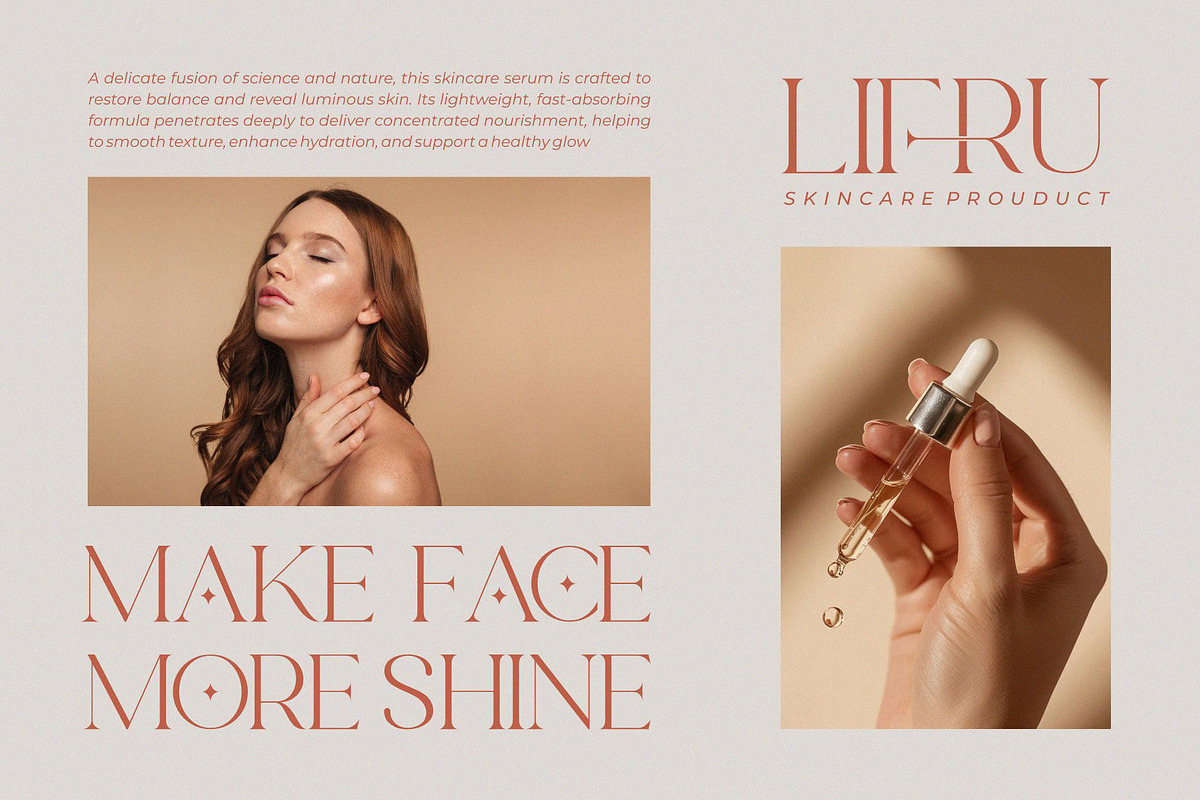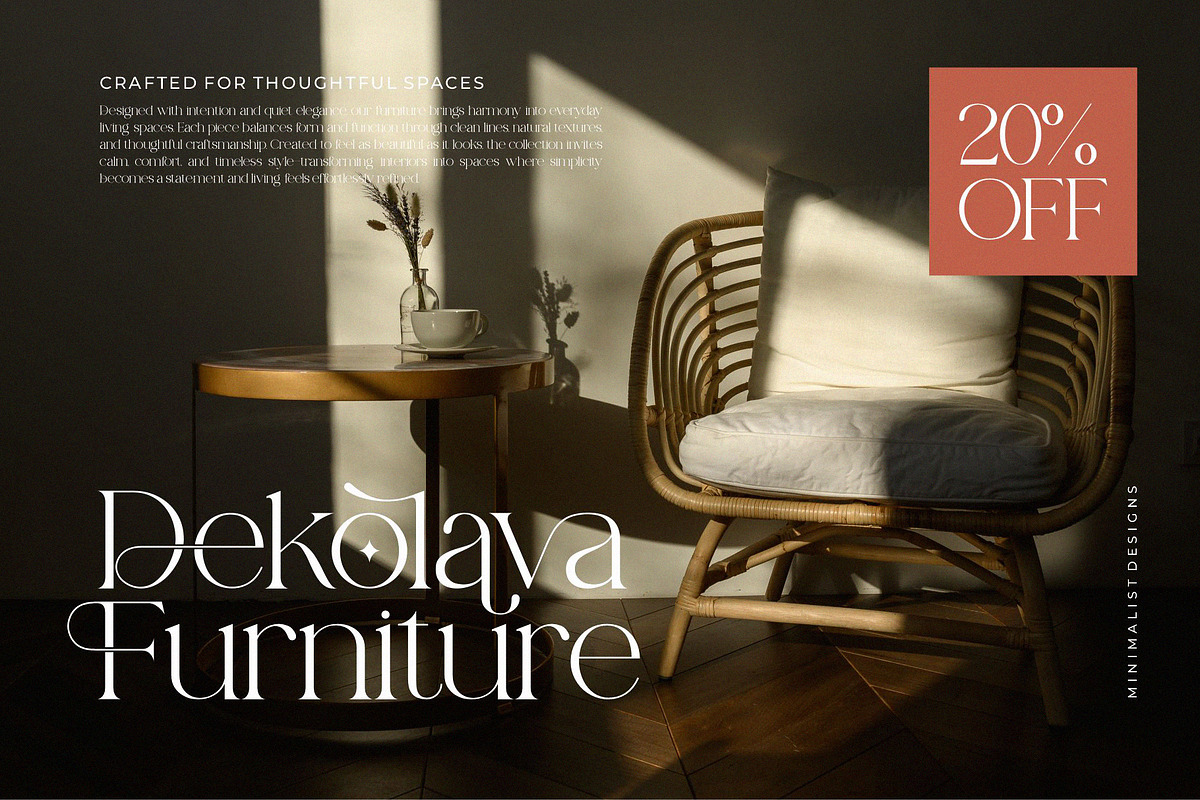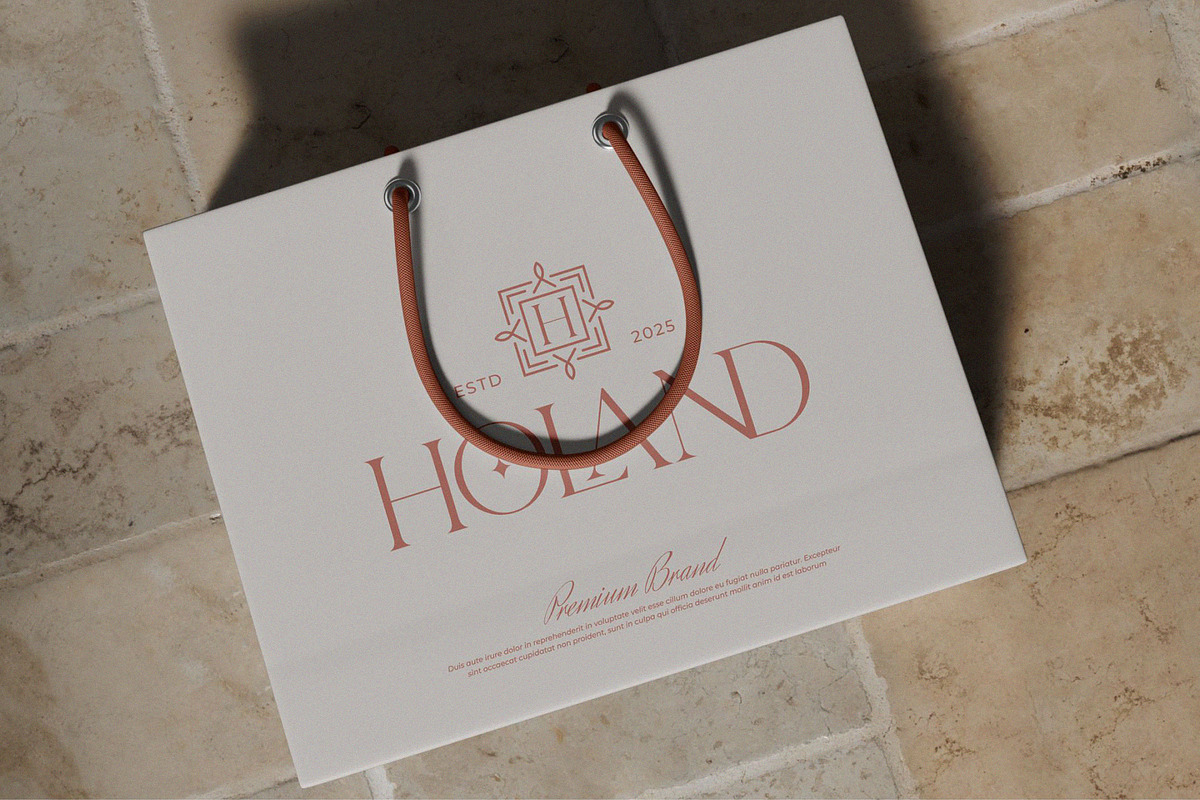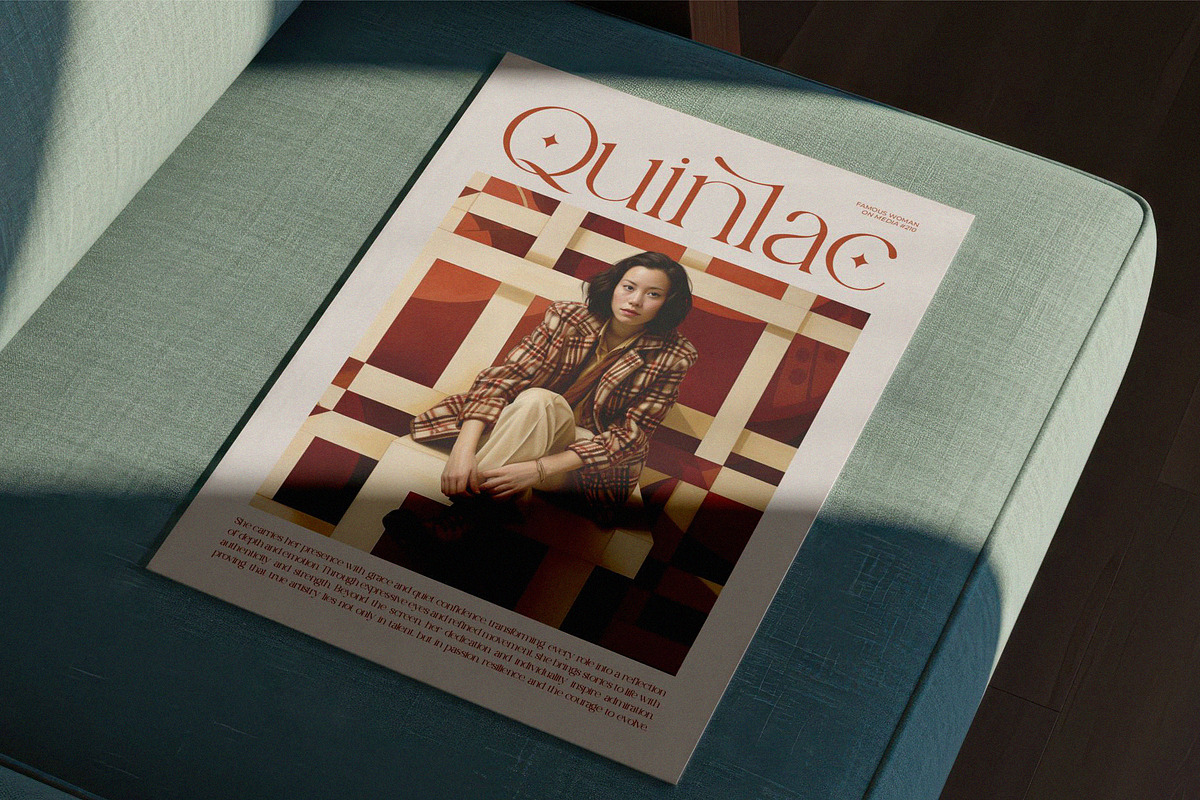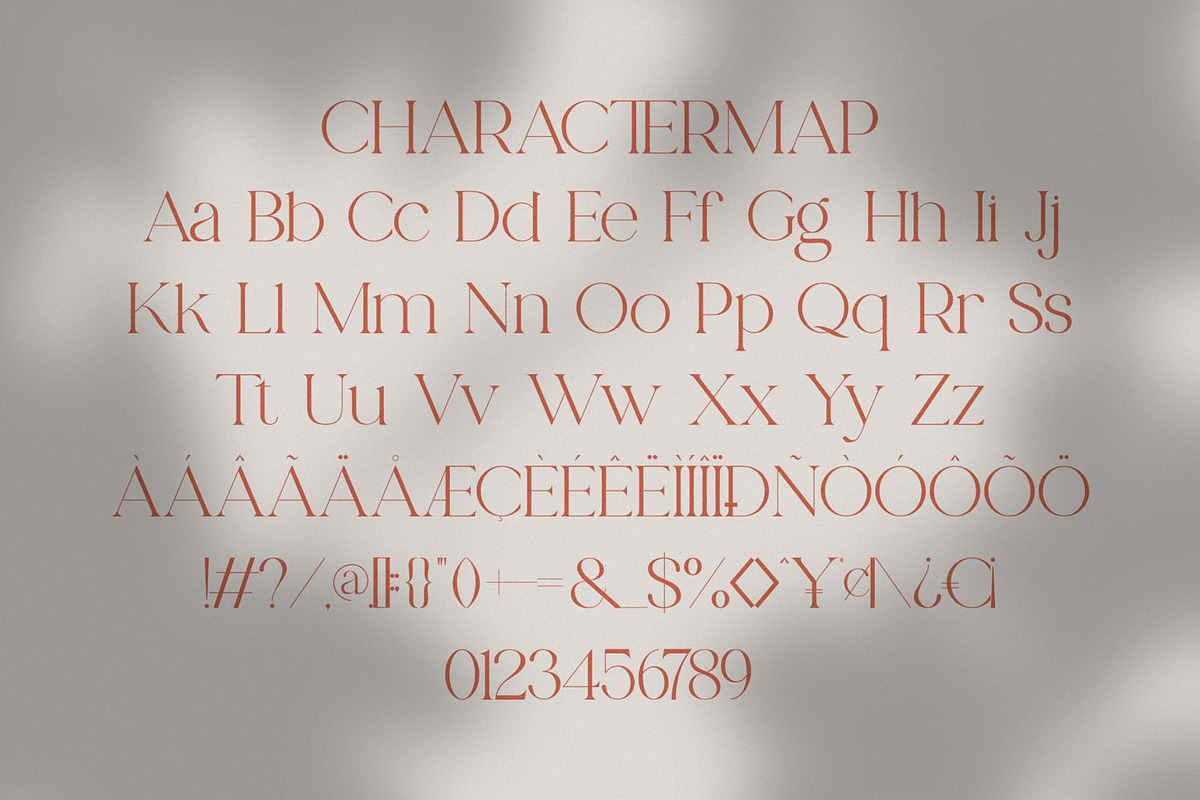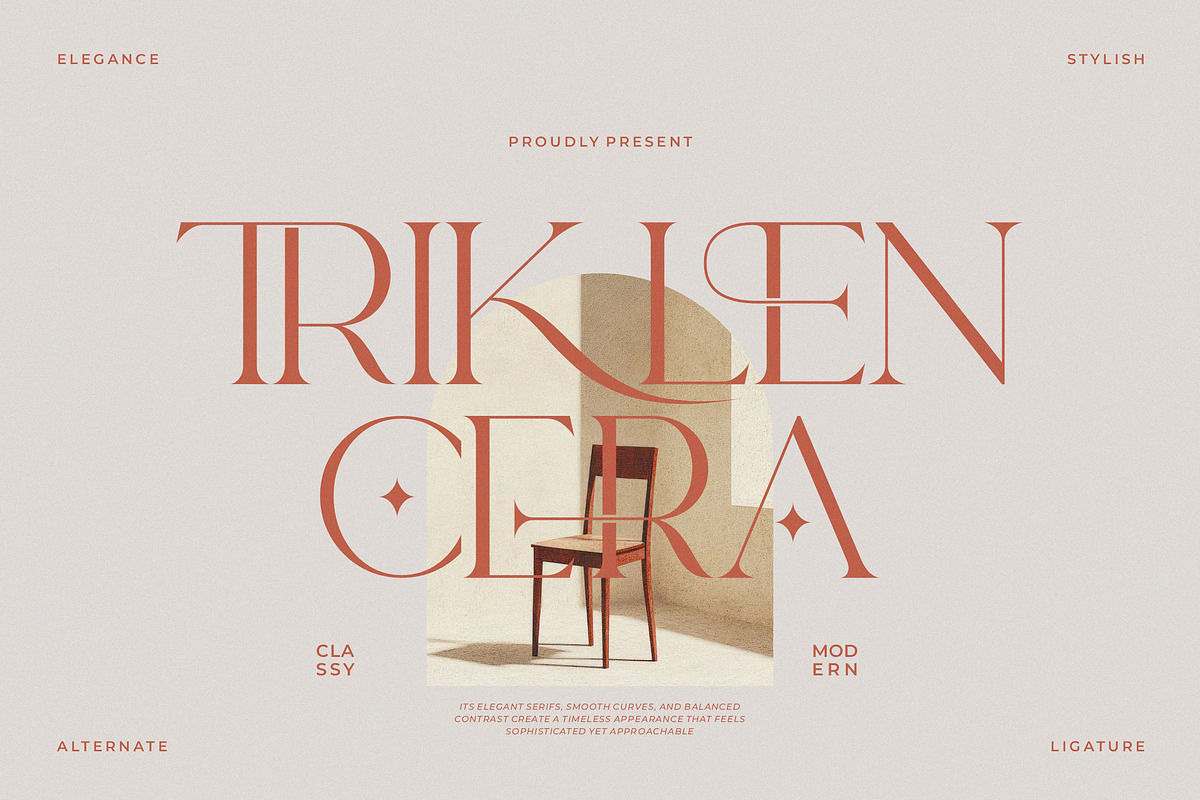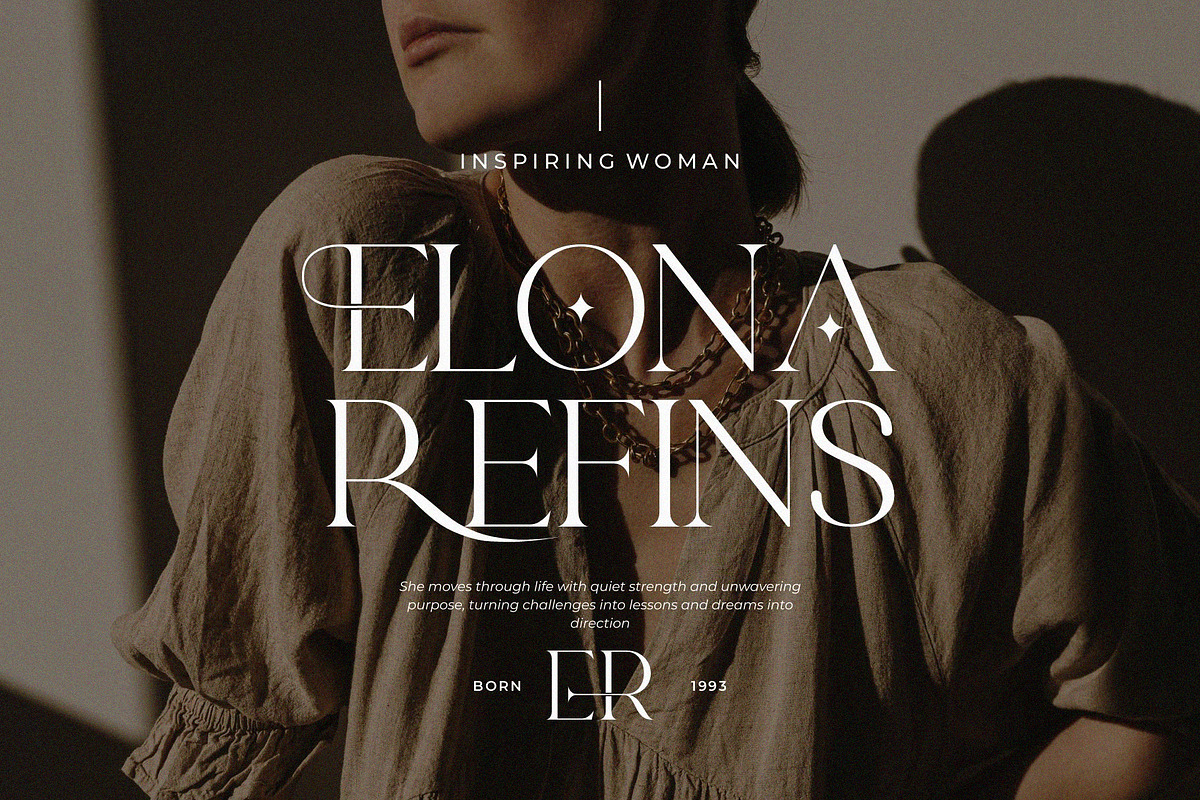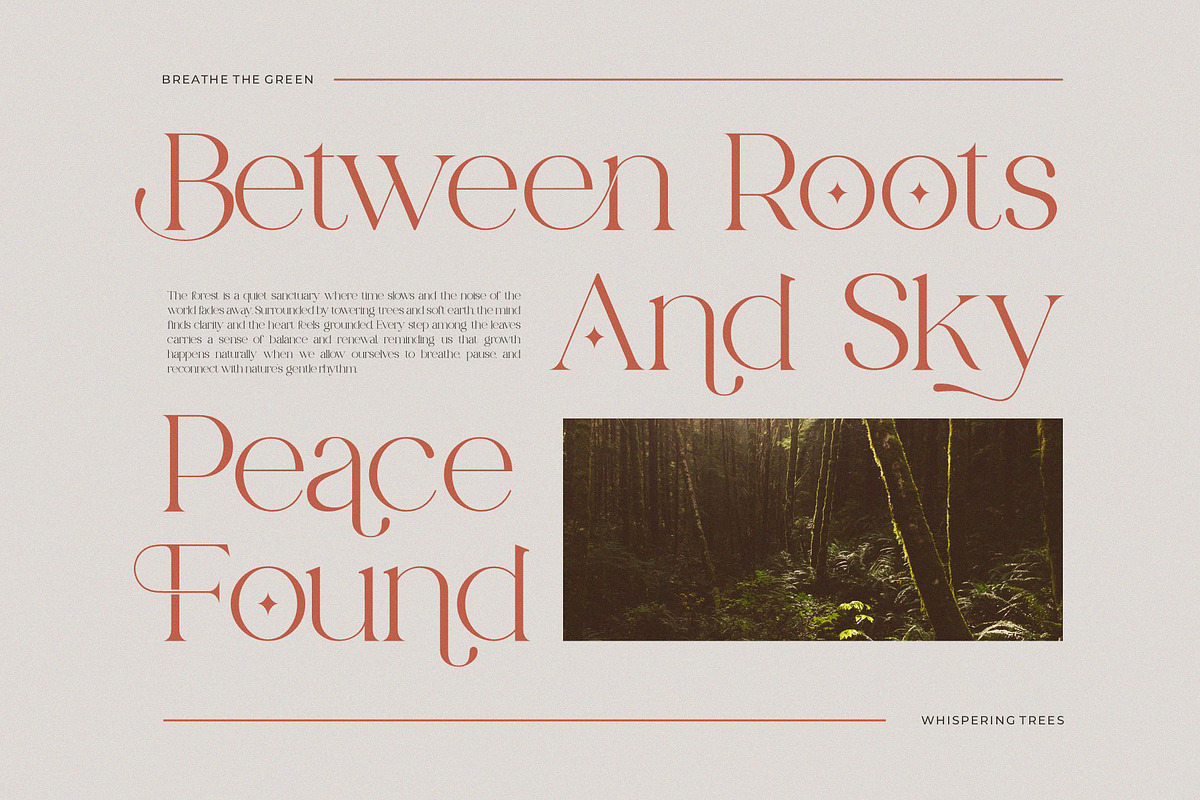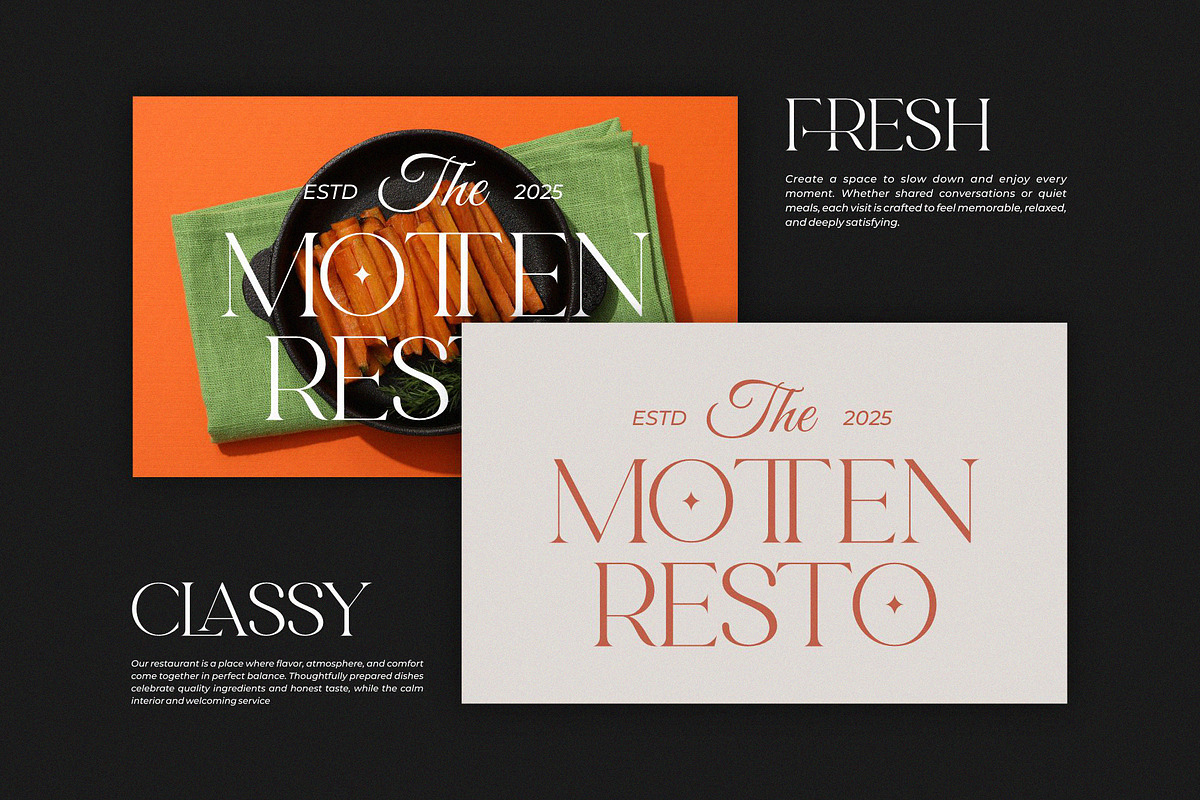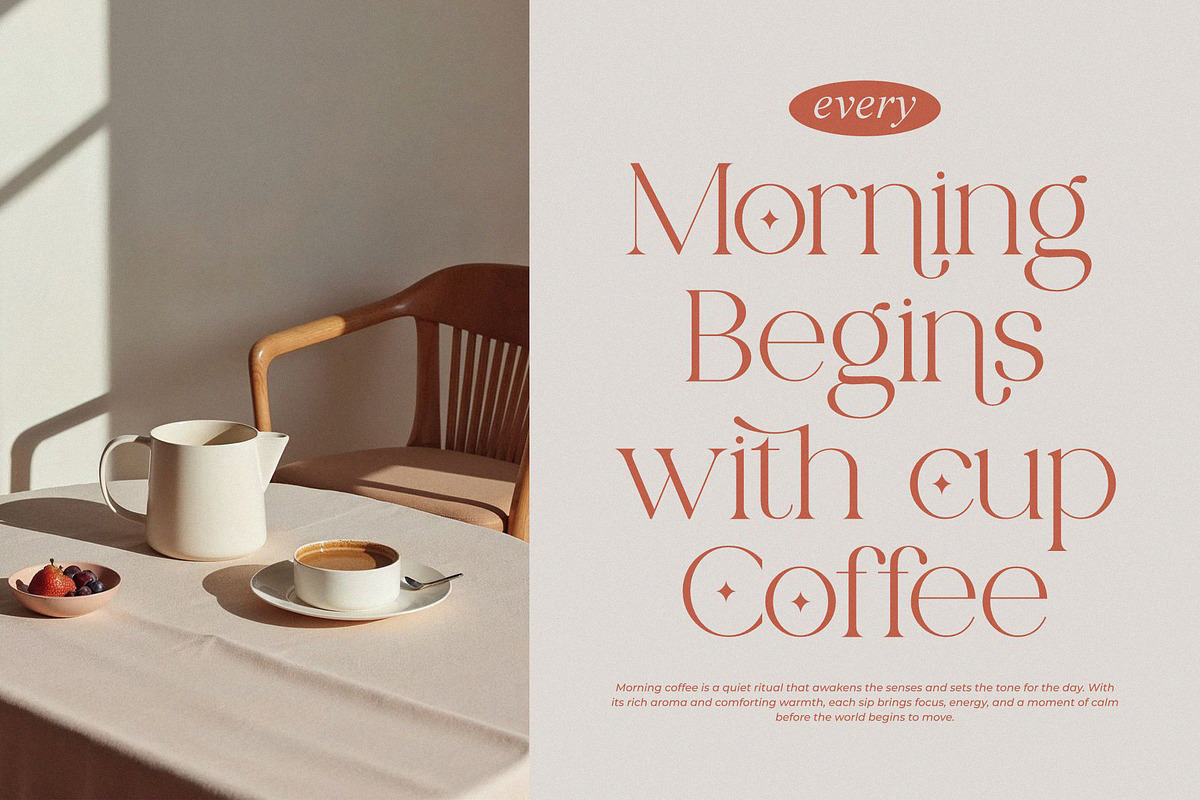
Triklen Care || Modern Vintage Serif
Triklen Care Serif is a modern and vintage font type for all branding and logo designs. This modern and vintage Serif font has a beautiful character. This font is suitable for invitation card designs, cool logos, movie titles, movie names, business cards, book titles, brand names, and various other designs. Triklen Care Serif is a smooth serif font that exudes sophistication and the moment. Its stylish ligatures make this font a perfect partner for any project.